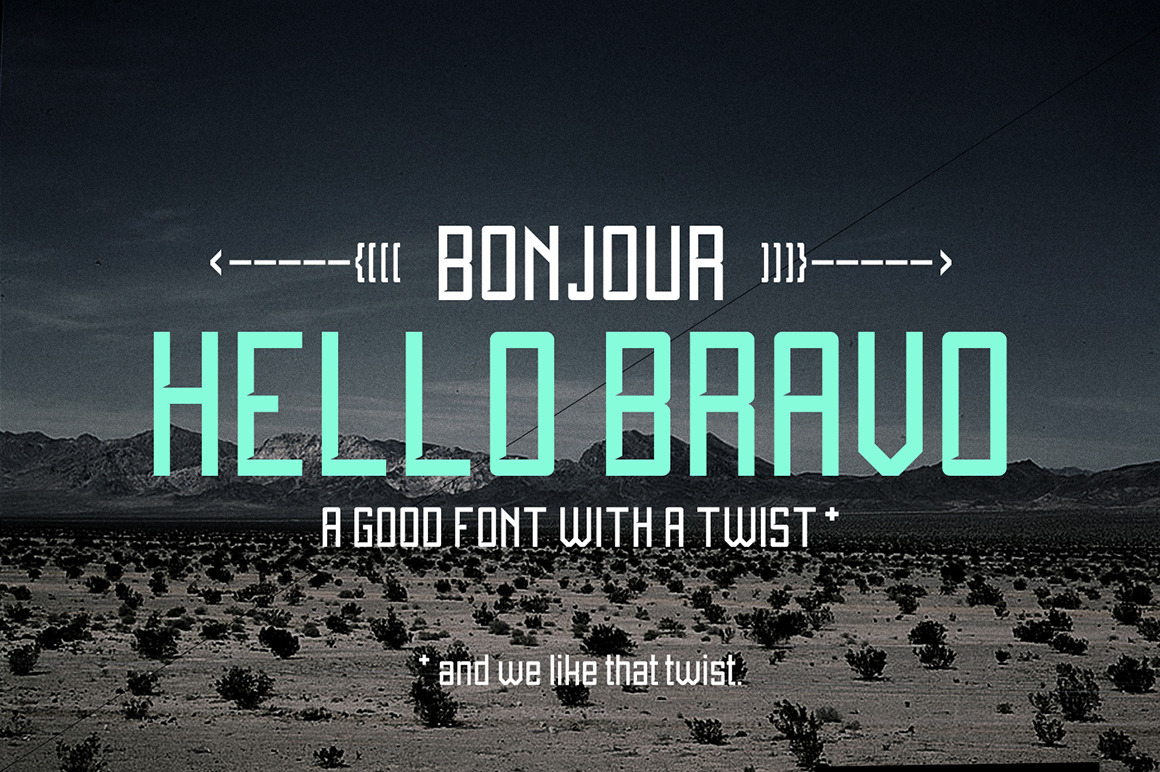
Hello Bravo - Font.
Hello Bravo - Font by Fonts of Chaos.
Hello Bravo is a sans-serif straight lines with a twist. Each letter are square angle inside, and round outside. Some letters avec a complete twist like the "N" or the "V W". I suggest using "Hello Bravo" for print processing or head line. Use it BIG. Hope you like it ;)